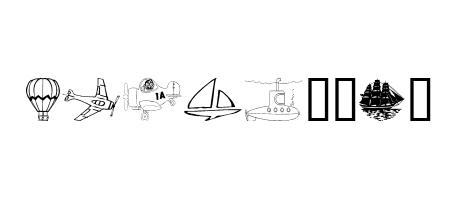
Vehicular
By GemFonts / Typotheticals
Vehicular is a playful, hand-drawn font depicting various modes of transportation. It's charmingly simplistic, with each character representing a vehicle—a hot air balloon, airplane, sailboat, submarine, and a sailing ship—creating a whimsical, childlike aesthetic ideal for logos, playful titles, or children's books. The black and white style adds to its vintage feel.